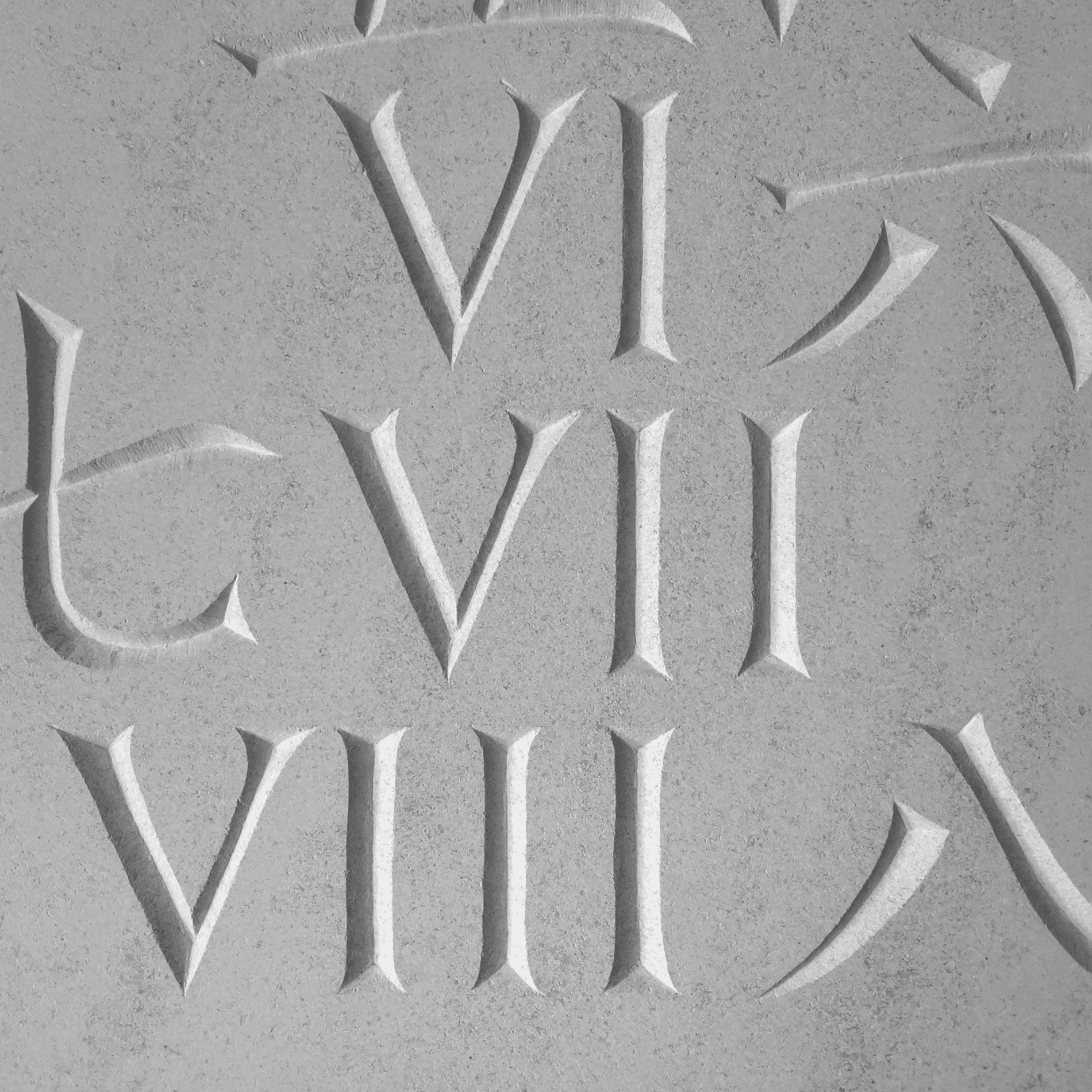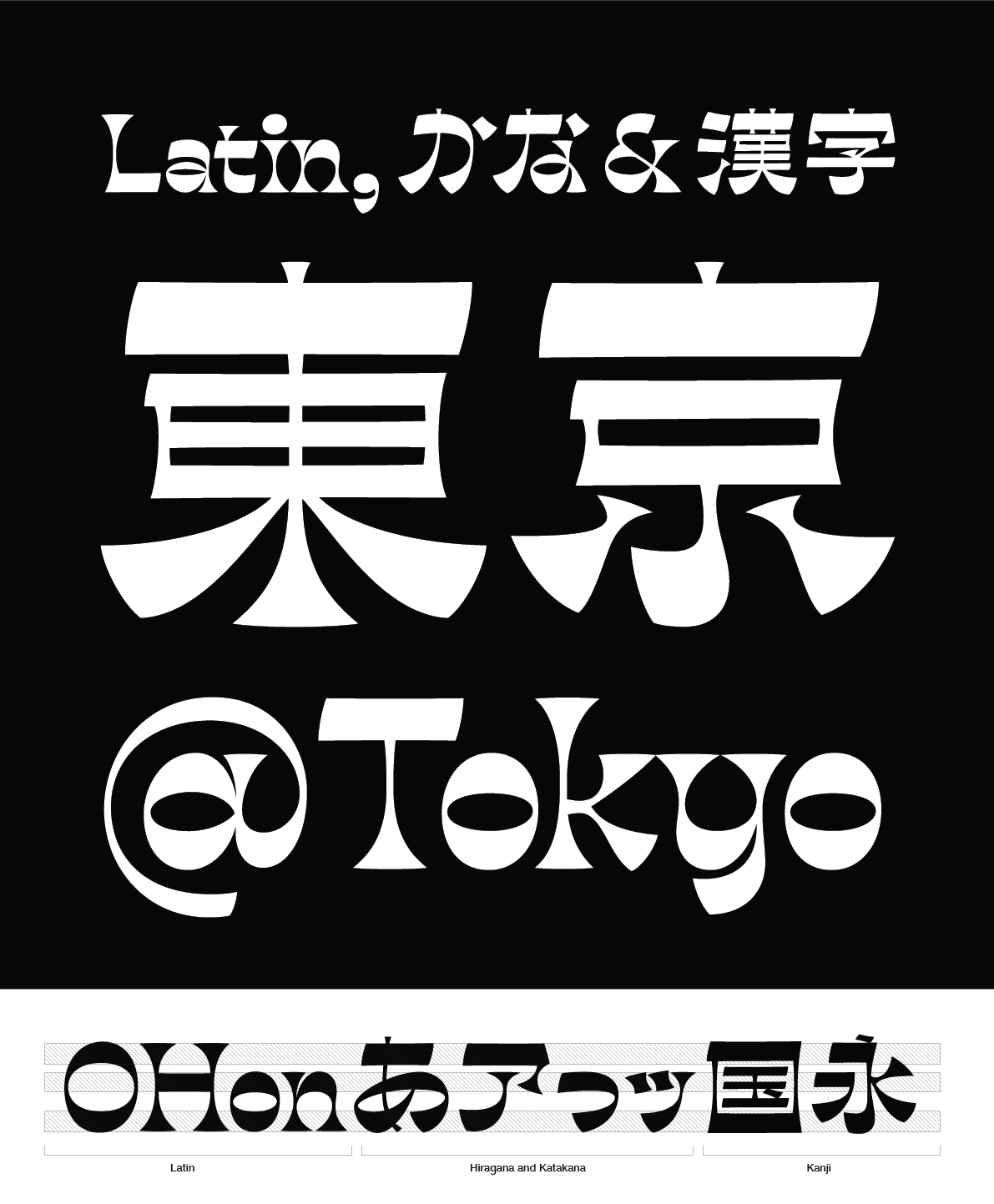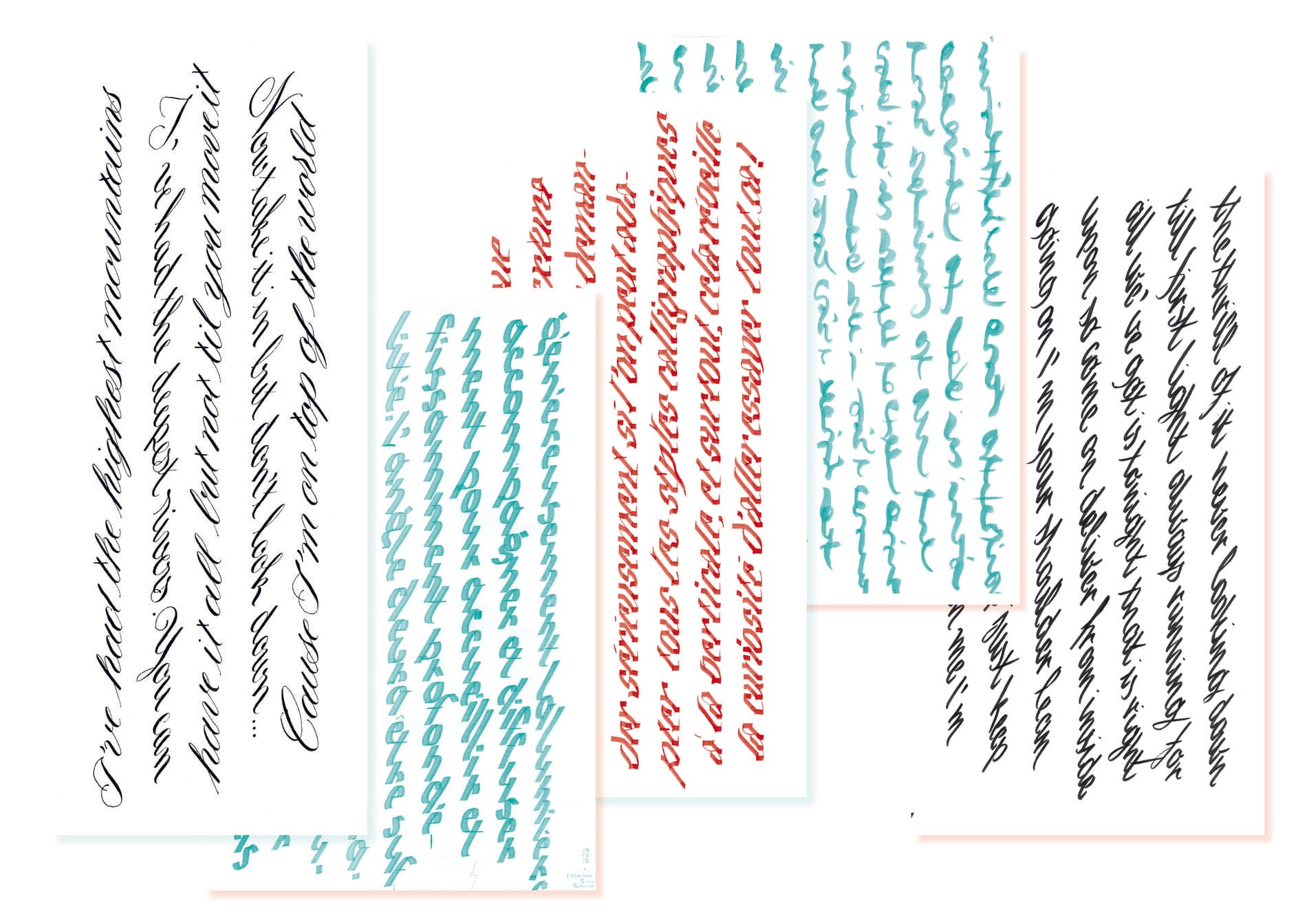
The Malee Scholarship Team
by Chantra Malee Montoya-Pimolwatana (co-founder)
It is with great pride, and excitement that we announce The Malee Scholarship. Speaking as a female ethnic minority, it has always been of personal interest to fight and advocate for social justice. There has been a lot of momentum for that in this cultural moment, and we wanted to do our part to help people from underrepresented communities find a voice in our industry. The goal of The Malee Scholarship is to identify talented female designers of color, and provide them with financial resources and mentorship to help them pursue a career in type design.
Although funded by Sharp Type, the formation of The Malee Scholarship was a collaborative effort. We wanted to highlight the talented team of women and men who contributed to this project which included a full brand system with custom fonts and a robust website.
TienMin Liao
TienMin is an incredibly talented type-designer who is just as comfortable drawing Latin typefaces as Hanzi and Japanese scripts. We commissioned her to develop the logotype for The Malee Scholarship to be reminiscent of traditional academic styles, based on ancient Roman stone-cut samples as well as the work of Father Edward Catich, which she executed effortlessly. The Malee Scholarship logotype is restrained, sophisticated, and fresh, and served as the foundation for the type system we would come to create.
Why or how did you get into type design?
I used to work in a branding agency. It’s very helpful to have some type-design knowledge when creating wordmarks, so I went to the Type@Cooper Extended Program where I discovered my true passion.
What has been your favorite project you've ever worked on?
I am currently working on a typeface called Ribaasu. It is a reverse-contrast multi-scriptural typeface including Latin, Katakana, Hiragana, and Kanji. Unlike the Latin alphabet, the weight distribution in Kanji and Kana is much more complex. Many strokes are diagonal or curved. Simply reversing the weight distribution may not create the same visual result as in the Latin one, so I have to find other solutions to make it work. It's challenging and fun to explore formulas that can be adapted to different scripts.
What was your design process for the Malee logotype?
After we decided to go with a direction with roman v-cut inscription style, I did some research on historical inspiration. Lucas also sent me photos he took in the Gallo-Roman museum in Lyon, which helped a lot. Then I started with a couple of letters with different styles and also tried some different ligature combinations, and we landed with the one that is more classic.
Any words of advice for a new designer entering the type industry?
It requires endless exploration and revision, but if you enjoy this process it’s a lot of fun.
My-Lan Thuong
We first discovered My-Lan by happenstance on Instagram. She had just posted sketches of her typeface Rosalie, which immediately caught our eye, and prompted us to connect with her. Within a type industry almost entirely reliant on a digital workspace, My-Lan still sketches all of her ideas first by hand with pencil and broad nib pen. Her skills in calligraphy are impressive, and she even dabbles in stone-carving. Starting with TienMin's logotype, My-Lan developed custom Malee Sans and Serif typefaces for our website and branding.
Why or how did you get into type design?
I have loved drawing letters since I was a kid. It is something I kept doing on the side until I discovered it was an actual job. At that point, I changed my studies with this goal in mind: becoming a type designer. I got accepted into ESAD Amiens and completed a bachelor in Graphic Design before entering the École Estienne in Paris for an MFA in Type Design. By then, my passion was confirmed and I got to work for type foundries.
What is your favorite typographic medium?
I think my favorite typographic medium remains the pencil and paper. I always need to sketch in order to visualize my ideas. This way, I feel free to quickly explore different options. Sometimes it also involves calligraphing, which is an exercise I particularly love as it is closer to writing than drawing. When I have the occasion, I also love stone carving letters. It is really satisfying to produce actual physical letters in a noble material such as marble.
Describe your process developing the Malee typeface.
I developed the Malee typefaces after the logo designed by TienMin. Following her steps, I looked at Edward Catich’s calligraphic capital letters to inspire the drawing of the rest of the uppercase. This way, the letterforms retain a brush-calligraphy feeling despite a more steady and typographic approach. The lowercase was imagined in an equally classic style, to be used for text settings. In a second time came the wish to add another level of text, in the shape of a sans-serif companion to the serif. The idea was to have a sans as delicate as the serif’s hairline. They can be used side by side and the serif becomes the sans’ bold.
What do you think is the greatest challenge a type designer faces?
I think the most difficult part is to find ways to be innovative in a field with many rules and a long tradition. It’s not easy to make something new, unique and good at the same time when we tend to believe that all has already been done or that it will be judged severely. It is a narrow path between being inspired by what has been done but not copying it, and being creative but still, find a place in the type landscape. So, I would say that the most challenging part is to dare and to find the right balance between all that.
What first got you interested in web development?
Making websites allows for a quick feedback loop of starting with an idea, creating a solution, and getting people’s response. It’s an interesting space where anything is possible. Technology is always evolving and creating new opportunities to experiment. The web can either be a great equalizer, or plunge us deeper into inequality; our duty is to work on the side of equality. What is your ideal project? A digital-physical exhibition that requires collaboration between the in-person gallery visitors and the website visitors. We’re interested in exploring how the web can output to physical experiences. We want to work within the push-and-pull space of multiple formats and mediums working together. What were the greatest challenges with the development of the Malee website? The greatest challenge was building the ‘Women of Type’ slideshow. We needed to ensure the slideshow would scale to the correct size on any device. It also required accommodating different paragraph lengths, languages, alignment, long words, short words, and more. We look forward to seeing how it works as new fonts are added in the future!